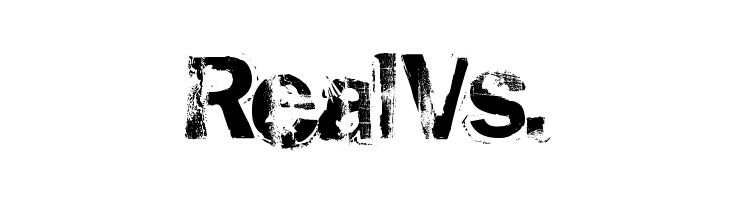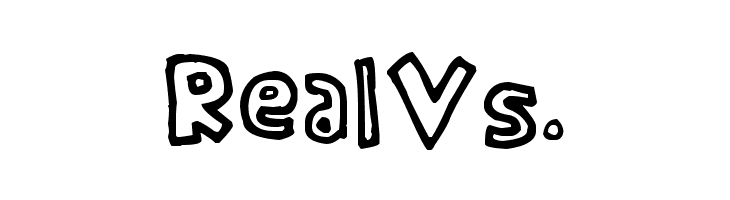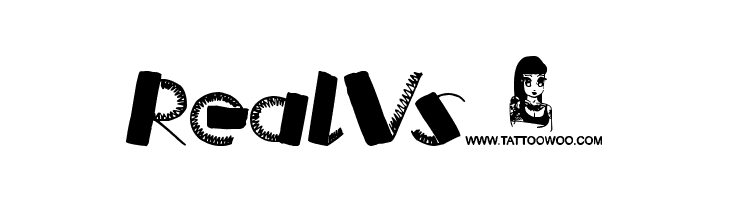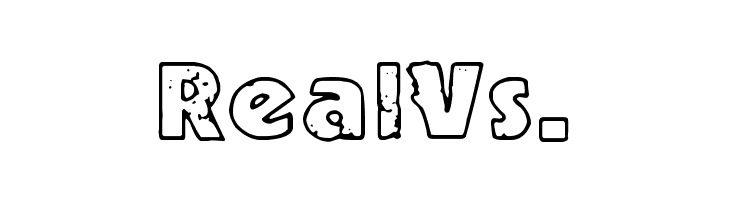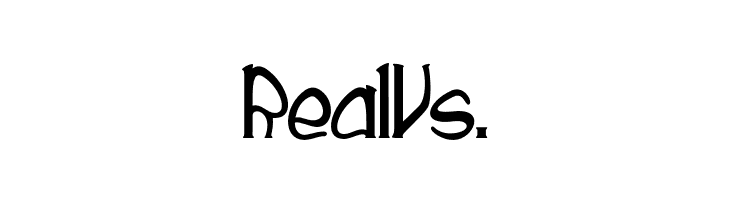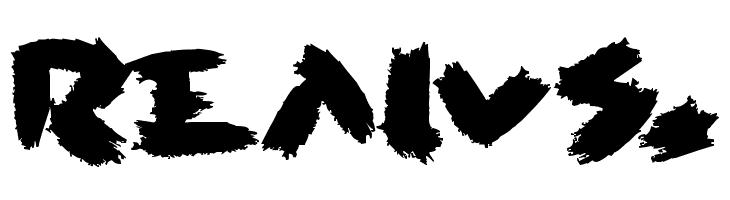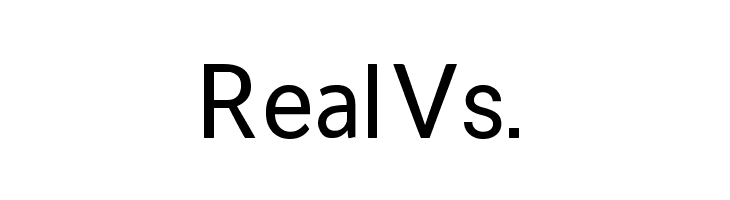
A bold, distressed font with a grunge aesthetic and textured details.
A bold, decorative font with abstract and flowing letterforms, ideal for artistic projects.
A bold, rounded font with a playful and modern aesthetic.
An artistic and abstract font with geometric and fluid forms.
A bold, decorative font with a double-line effect and rounded, playful characters.
A bold, decorative font with a double-line effect and artistic curves.
A bold, decorative font with a double-line border effect.
A bold, outlined font with a playful and modern aesthetic.
A bold, artistic font with a blend of geometric and organic shapes, perfect for creative projects.
An artistic and elegant font with flowing, interconnected strokes.
A bold, decorative font with abstract and artistic letterforms.
A modern, abstract font with consistent line weight and artistic character design.
A modern, decorative font with rounded, flowing letterforms and consistent stroke width.
A modern, playful outline font with geometric shapes and rounded edges.
A bold, outline font with rounded, flowing characters for modern, decorative use.
A futuristic outline font with a wireframe aesthetic.
A modern, geometric outline font with a demi-bold weight and sleek design.
A decorative outline font with a modern, geometric style.
A bold, outline-heavy font with a modern, futuristic aesthetic.
A modern, outline-style font with a light and airy appearance.
A modern, outline-style font with smooth, continuous lines and a geometric structure.
A thin, abstract font with futuristic and artistic design elements.
An ultra-thin, modern font with abstract and artistic character designs.
A bold, brushstroke-style font with a rugged, energetic appearance.
Icon-based decorative font with Russian cultural and historical imagery.
A bold, edgy font with a hand-drawn, rebellious style.
A distressed, grunge-style font with a textured, weathered appearance.
A bold, artistic font with curvy, whimsical letterforms.
A bold, distressed font with a grunge texture and rugged appearance.